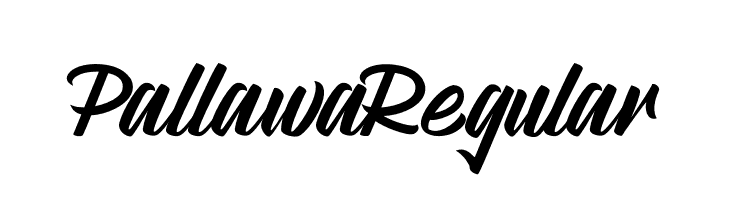
( Fonts by Des Gomez )
A playful, hand-drawn font with tall, narrow letters and a whimsical style.
( 7NTypes - Situjuh Nazara - 7ntypes.com )
A bold, playful font with a hand-drawn, energetic style.
( 7NTypes - Situjuh Nazara - 7ntypes.com )
A bold, slanted handwritten font with a dynamic and friendly style.
A bold, 3D metallic font with an industrial and impactful style.
( Fonts by Bartek Nowak - www.nowak.tv/fontoholic/ )
A bold, geometric font with a modern and assertive style.
An elegant, cursive font with decorative swashes and flourishes.
A bold, playful handwritten font with rounded, uniform strokes.
A lively and elegant script font with flowing, cursive letterforms.
A bold, handwritten font with a playful and casual style.
A lively and elegant script font with flowing, cursive letterforms.
A bold, italic font with a dynamic and energetic style.
A bold, blocky font with rounded edges and a vintage-modern appeal.
A bold, outlined, and slightly italicized font with a three-dimensional effect.
A bold, decorative font with a three-dimensional, outlined style.
A bold, 3D italic font with a playful and dynamic style.
A bold, three-dimensional font with a retro, geometric style and strong shadow effects.
( Mike Brando - BrandoArts.com )
A tall, narrow, and modern font with a sleek, consistent stroke width.
A playful, hand-drawn font with tall, narrow characters and a whimsical style.
( Fonts by Basni.std )
A graceful, cursive script font.
( Béla Frank - belafrank.com )
A narrow, elongated font with a modern and artistic style.
A modern, cursive script font with fluid, connected letters.
( Fonts by Andrew McCluskey - nalgames.com )
A bold, geometric font with angular shapes and a futuristic, industrial feel.
( Fonts by Kevin Christopher - www.kcfonts.com )
A bold, distressed font with a vintage, grunge aesthetic.
( Fonts by Des Gomez )
A playful, hand-drawn font with decorative elements and a whimsical style.
( Fonts by Luluk Surotul - Personal-use only. For commercial use please contact owner. )
A bold, playful script font with a handwritten, dynamic style.
( Fonts by Ramli Setiadi - Personal-use only. For commercial use please contact owner. )
A playful and whimsical script font with flowing, cursive letters.
( Fonts by Stefani Letter - Stefani Tri Rosa - Personal-use only. For commercial use please contact owner. )
A bold, playful handwritten font with rounded, dynamic letterforms.
( Fonts by PutraCetol Studio )
A playful, bunny-themed decorative font with bold, rounded characters.
( Fonts by PutraCetol Studio )
A playful font with bunny ear embellishments, perfect for festive and cheerful designs.
( Fonts by PutraCetol Studio )
A playful font with each character featuring a cute bunny face, perfect for fun and creative projects.
( Fonts by PutraCetol Studio )
A playful, carrot-themed decorative font with bold, rounded characters.
( Fonts by PutraCetol Studio )
A playful, carrot-themed decorative font with bold, rounded characters.